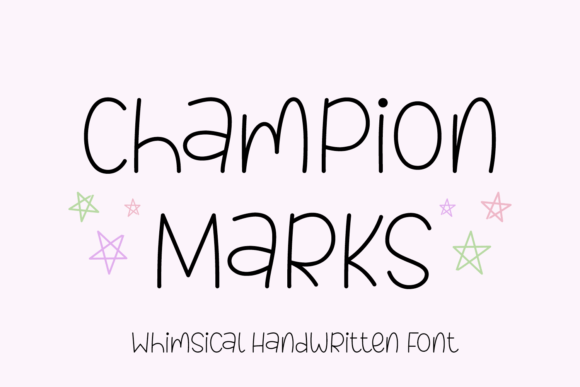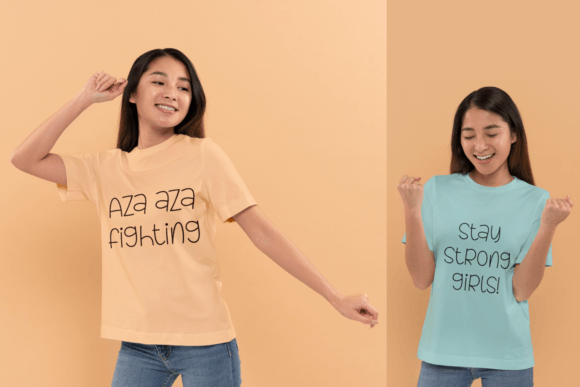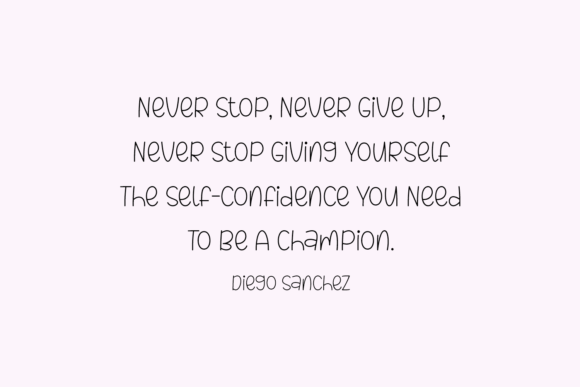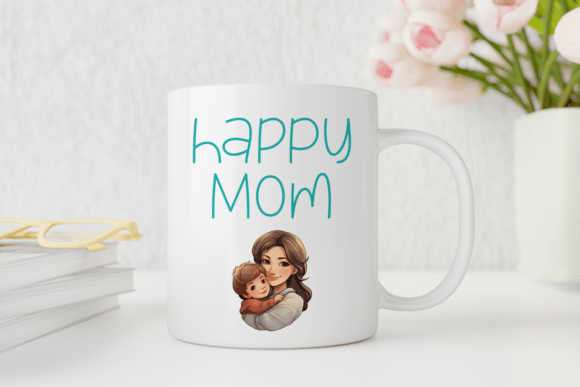
Champion Marks Font: A Cute Handwritten Font for DIY & Cricut!
About the Champion Marks Font
We are excited to introduce Champion Marks Font, a must-have typeface for any serious designer. Champion Marks is a quirky handwritten font that exudes charisma and individuality. With playful strokes and unique character shapes, it radiates a lively, handcrafted charm. Whether used for titles, logos, or creative projects, Champion Marks stands as a testament to the spirit of unconventional and spirited design.
Champion Marks Font Usage Examples
Champion Marks Font Example